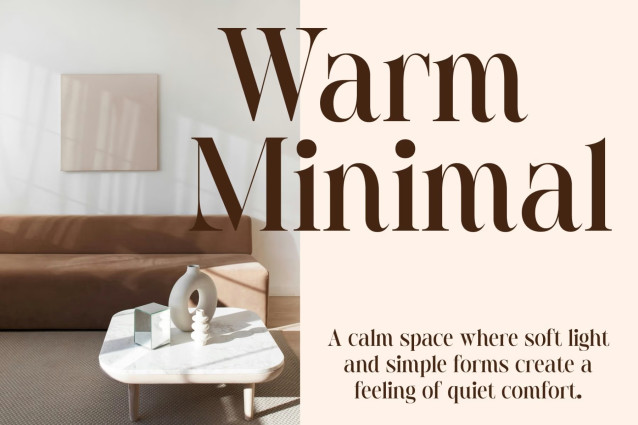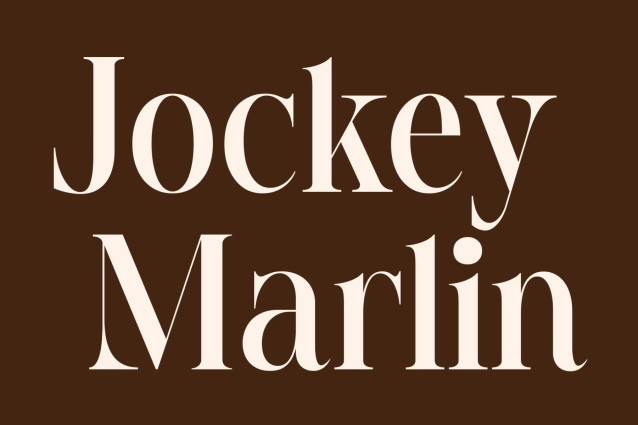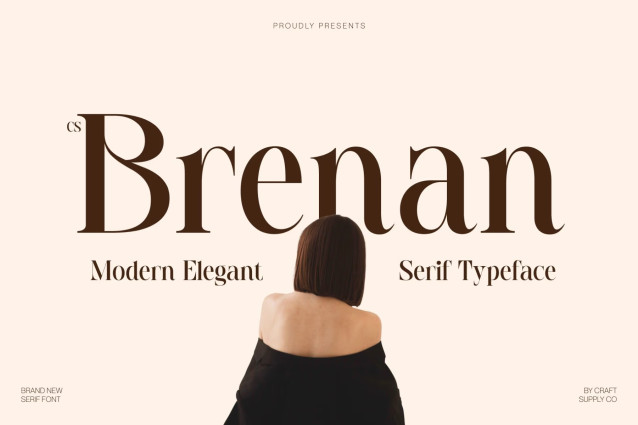
S Brenan – Modern Elegant Serif Typeface: Where Refined Elegance Meets Timeless Sophistication
Refined Letterforms with Graceful Proportions
This is a modern elegant serif typeface designed with high-contrast strokes and beautifully refined letterforms. Its graceful proportions and carefully crafted serif details create a sophisticated visual rhythm that feels polished, luxurious, and effortlessly timeless. Every character is shaped to convey elegance while maintaining exceptional clarity and balance.
Contemporary Sophistication with Editorial Appeal
This font embodies the refined aesthetics of premium editorial typography. The dramatic contrast between thick and thin strokes enhances its stylish personality, making it equally suitable for contemporary branding and elegant print design. Its clean structure delivers a perfect balance of beauty and professionalism.
Timeless Typography for Premium Visual Identities
Designed to communicate prestige and refinement, that creates a distinctive visual identity that transcends trends. Its elegant construction makes every composition feel elevated, whether used for large headlines or sophisticated brand applications. The result is typography that is memorable, graceful, and undeniably luxurious.